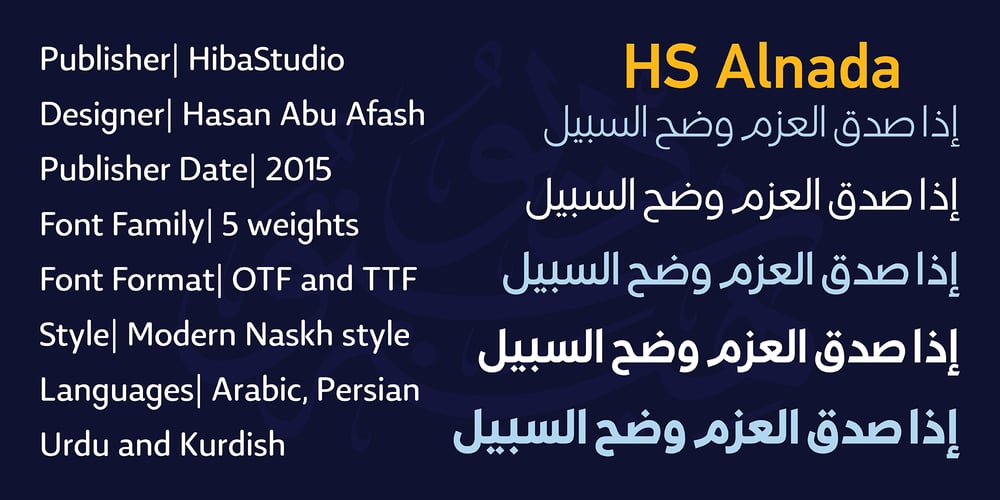
HS Alnada Font Family was designed by Hasan Abu Afash and published by Hiba Studio. HS Alnada contains 5 styles and family package options. HS Alnada is a modern OpenType Arabic Typeface. It is a modern Kufi / Naskh hybrid and keeps the balance between its construction and calligraphic angular cuts. This typeface supports Arabic, Persian, Urdu and Kurdish variants and it is available in five weights: light, regular, medium, bold and black. They are refined with enhanced legibility and are ideally suited to advertising, extended texts in magazines, newspapers, book and publishing, and creative industries, meeting the purposes of various designs for all tastes.